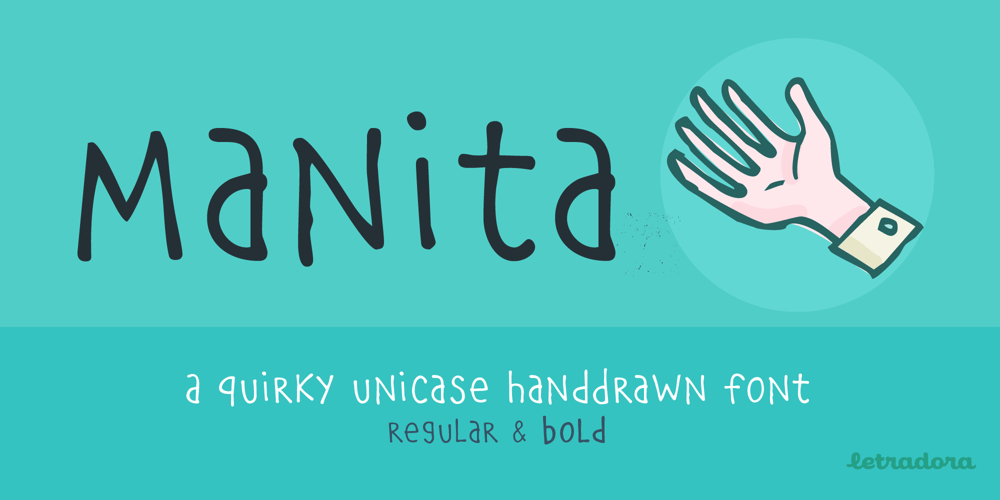
Manita Px Font Family was designed by Kemie Guaida Ortega, Jorge Villalobos and published by Letradora. Manita Px contains 2 styles and family package options. Manita is a quirky, humorous unicase face, reminiscent of comic lettering. Supports most Central and Western European scripts. Includes ligatures and several fun dingbats!